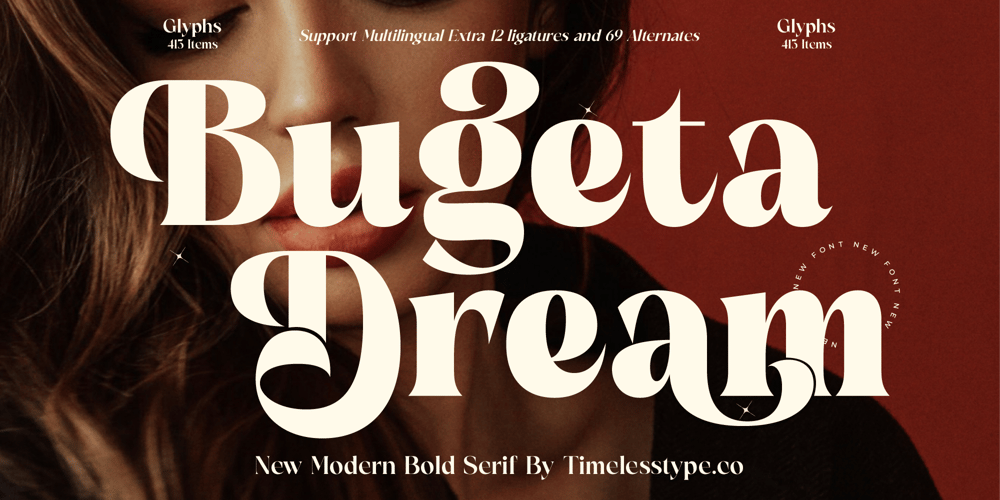
Bugeta Dream Font Family was designed by Heru Utama Putra and published by Timelesstype Studio. Bugeta Dream contains 2 styles and family package options. Bugeta Dream – New Modern Bold Serif , from Timelesstype, Suitable for any projects such as: logos, branding projects, homeware designs, product packaging, mugs, quotes, posters, shopping bags, t-shirts, book covers, name card, invitation cards, greeting cards, label, photography, watermark, special events, and all your other luxury and beautiful projects that need a Luxury Serif taste.